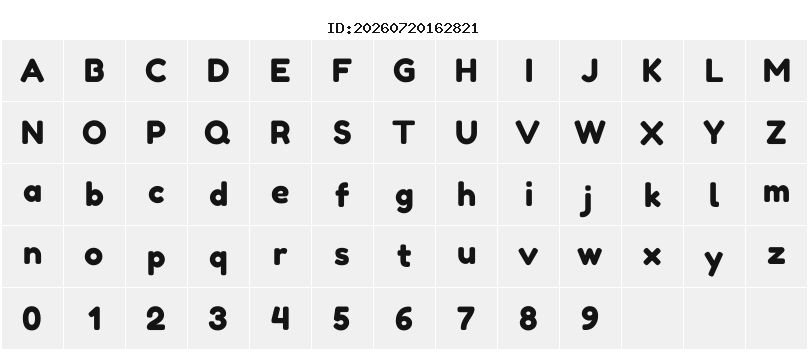
• Font Name: Fredoka One
Fredoka One.ttf is a modern, elegant sans-serif font designed for ultimate readability and visual harmony. Perfect for branding, headlines, web design, and print materials.